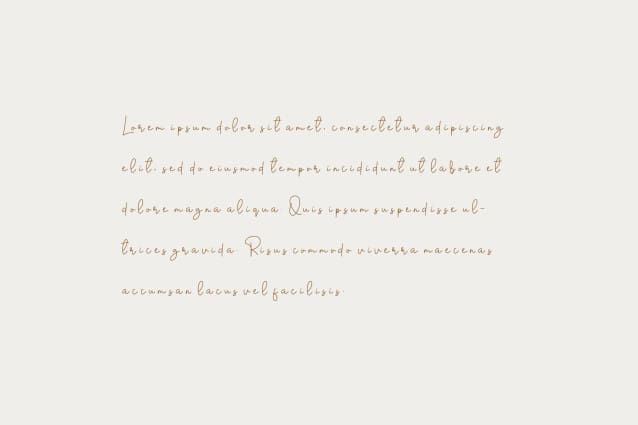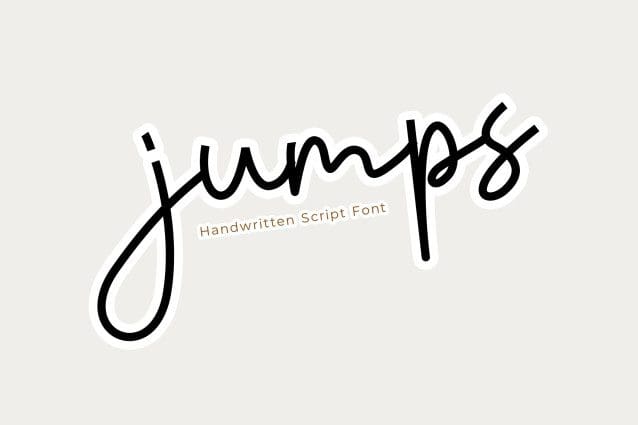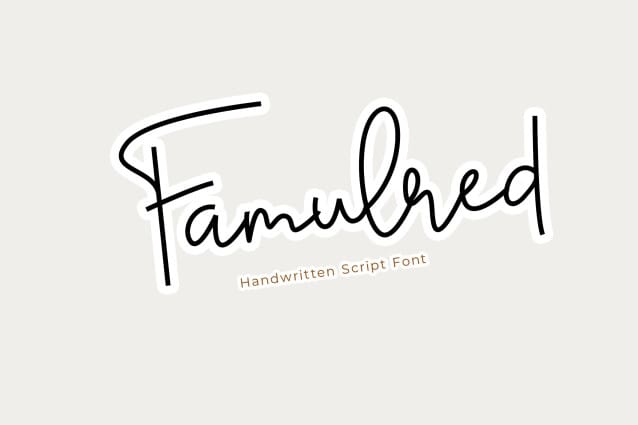
Famulred Handwritten Font
Famulred Handwritten font that you can use for logos, website headers, fashion designs, wedding card designs, and more. Add this lovely freebie to your creations and take your designs to the next level!